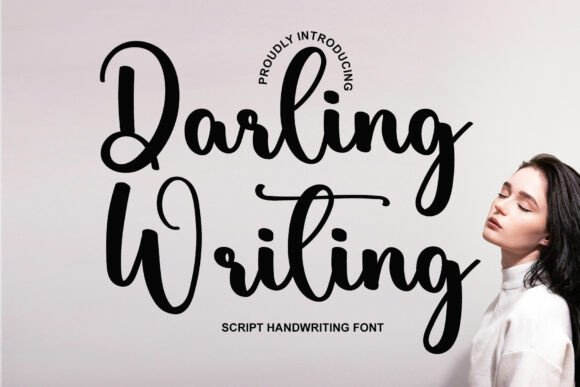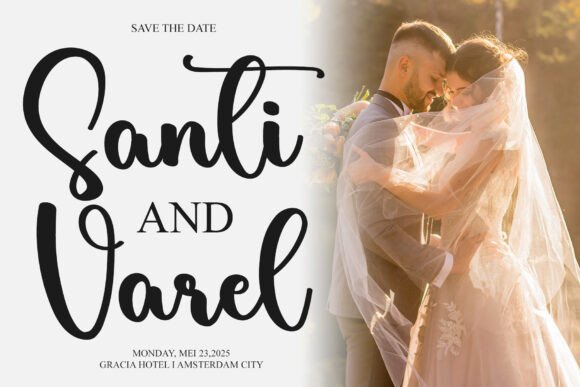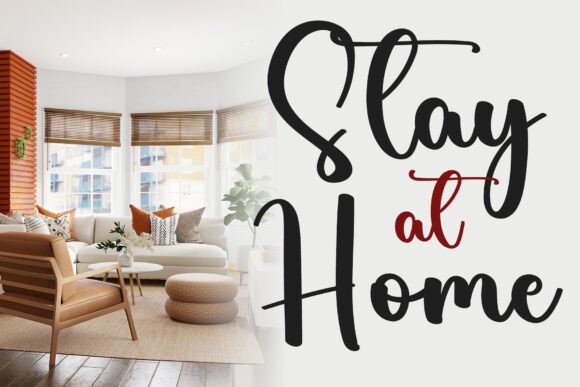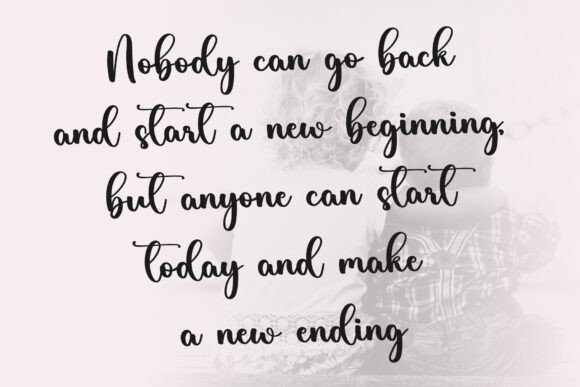
Darling Writing Font
About the Darling Writing Font
Introducing the Darling Writing Font, a beautifully crafted typeface designed to elevate your creative projects. Darling Writing is a sweet and cursive handwritten font. This gentle font will look gorgeous on a variety of design ideas. It will add a joyful and romantic touch to each of your projects! Perfectly fit for branding, logo, wedding things, greeting cards, fashion, lookbook, marketing promotion, anytime you want to look fancy elegant but still casual.
Darling Writing’s gentle curves and organic forms are ideal for headlines, short text blocks on invitations or packaging, and branding applications where a touch of handwritten charm is desired. It excels in projects emphasizing romance, femininity, or a handcrafted aesthetic. However, its cursive nature makes it unsuitable for body text or UI elements requiring high readability.
For optimal visual balance, pair Darling Writing with a clean sans-serif like Montserrat for a modern contrast, or a classic serif such as Garamond for a more traditional feel. A simple geometric sans-serif would also provide a strong counterpoint to its flowing script.
The overall personality of Darling Writing is undeniably romantic and friendly, yet sophisticated enough for upscale branding. Its charm lies in its delicate balance of elegance and approachability.
Darling Writing Font Usage Examples
Darling Writing Font Example